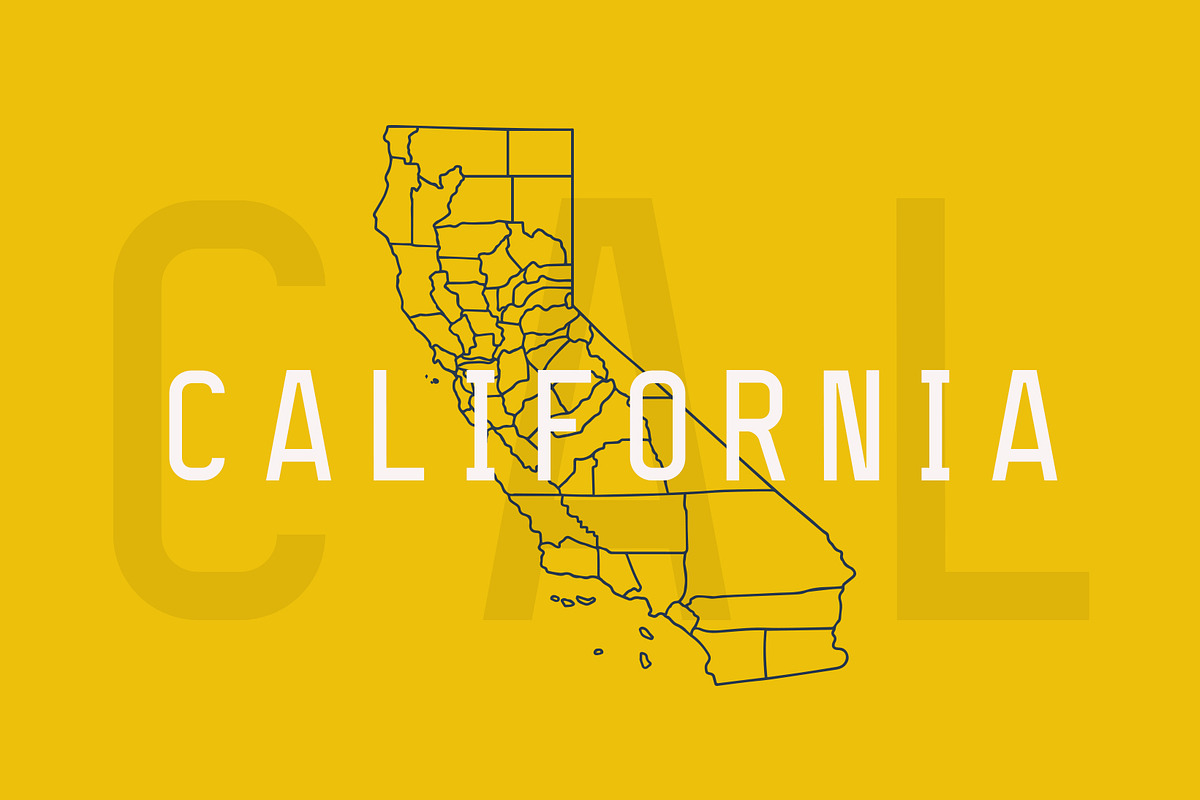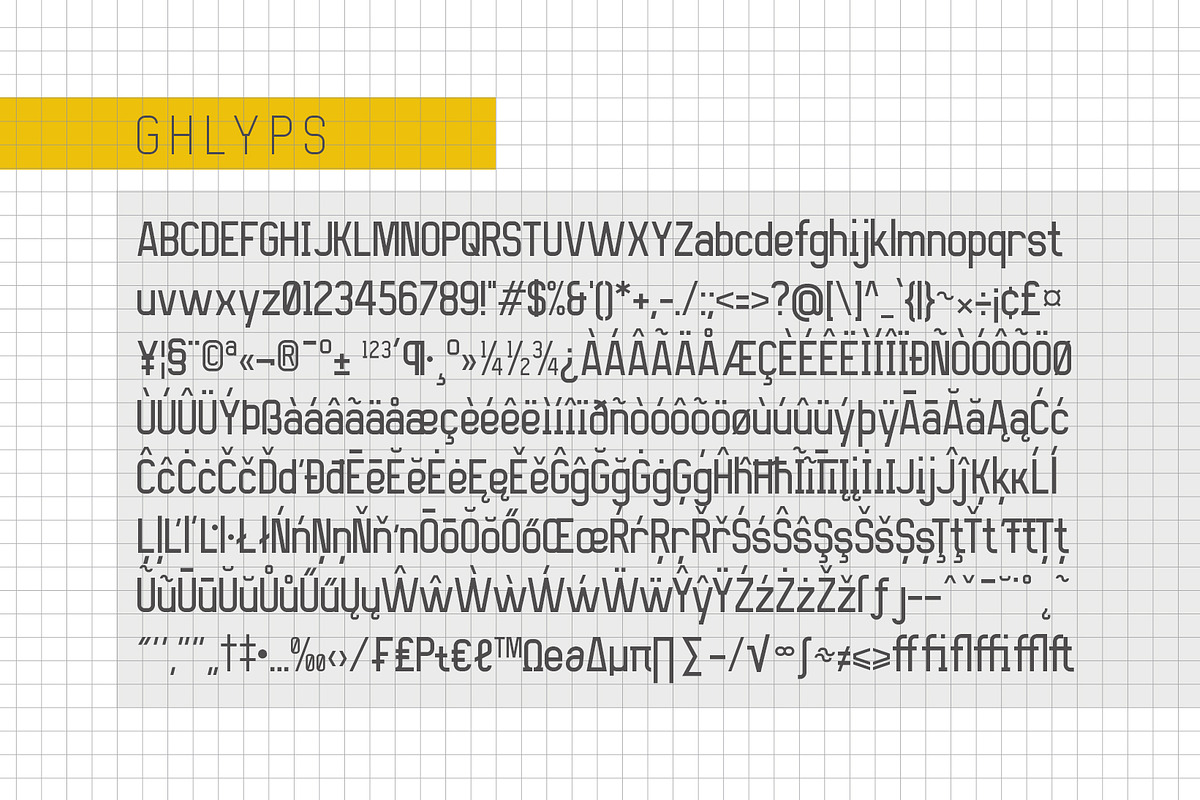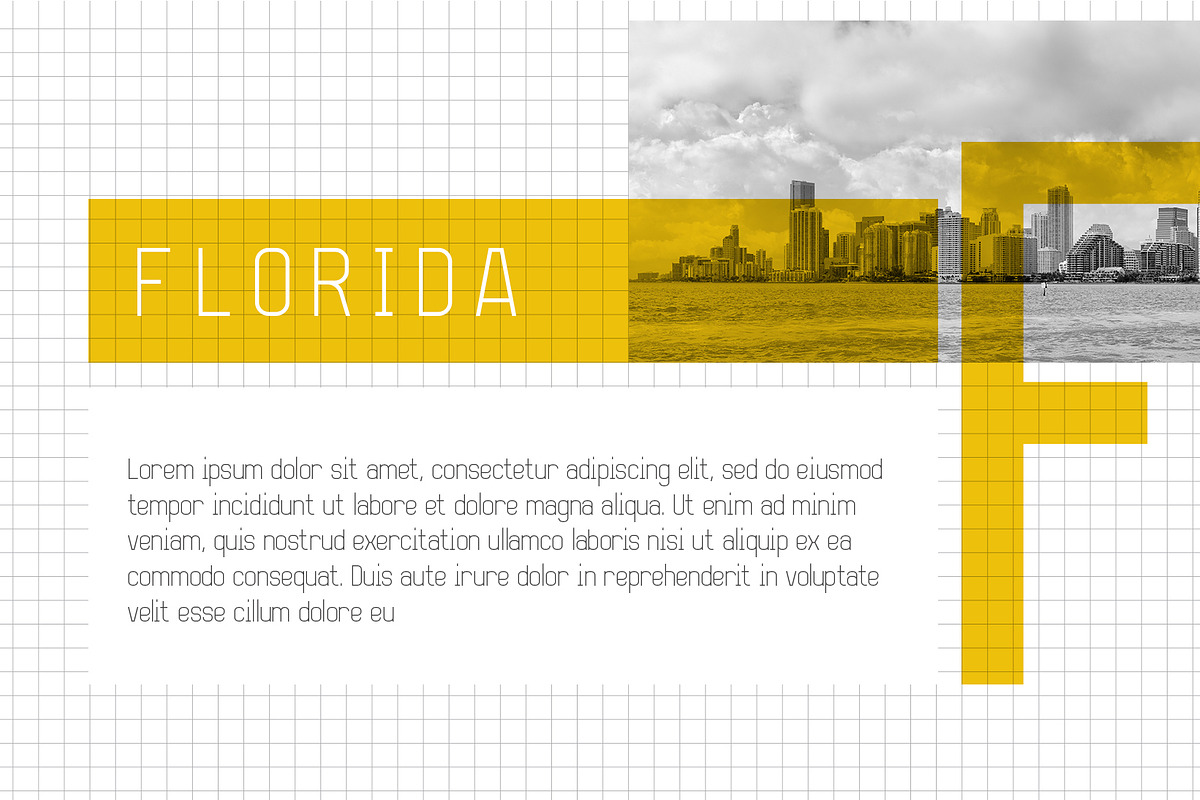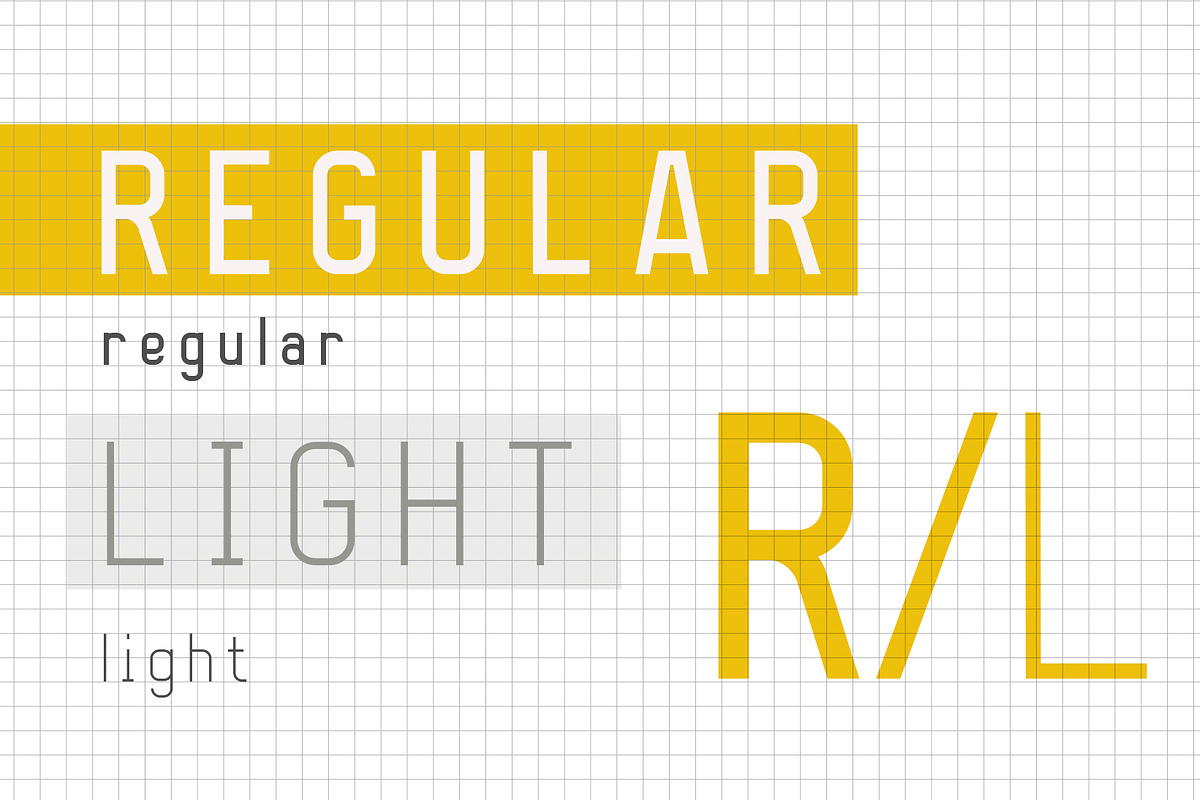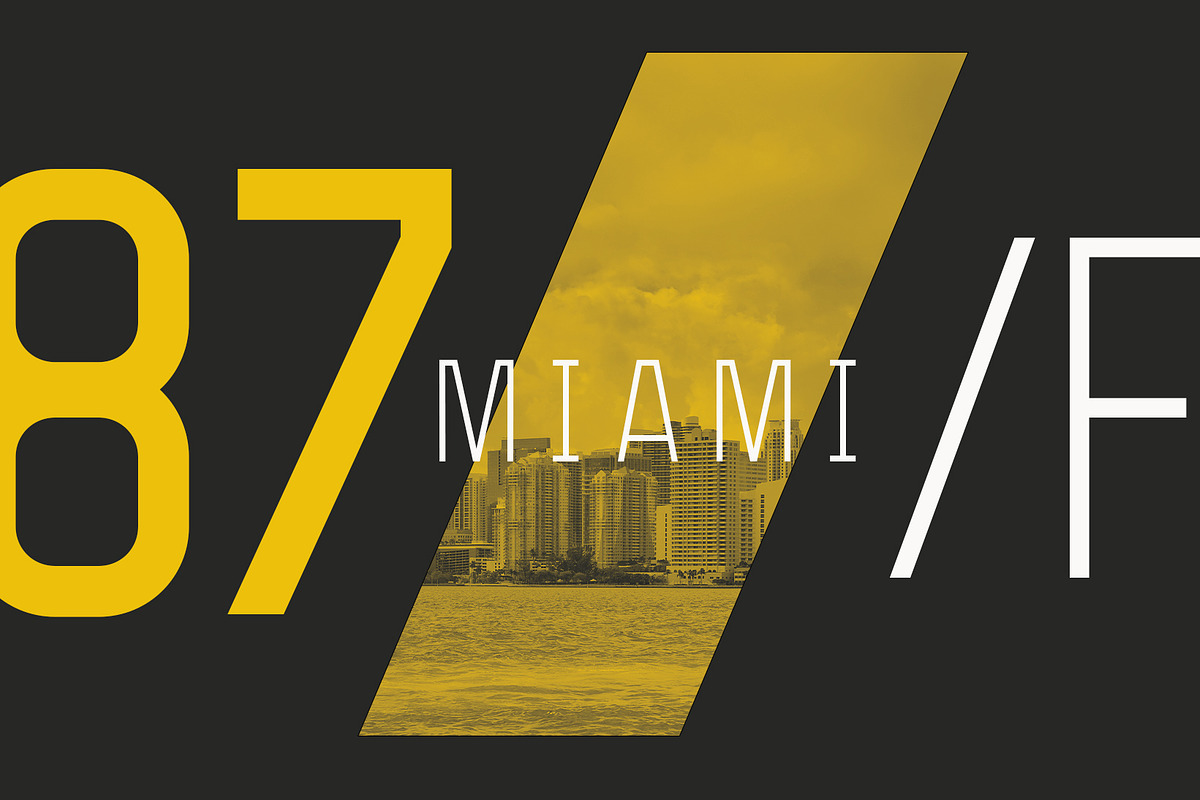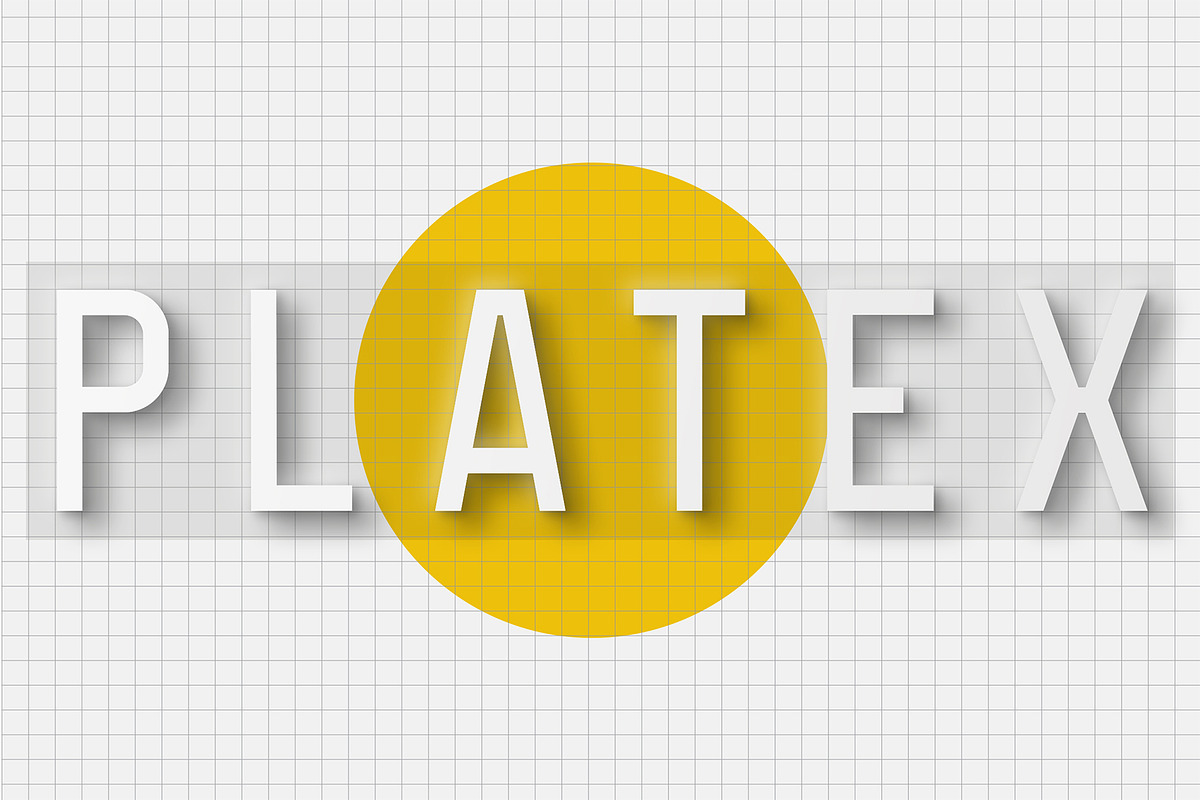
Platex
Platex is a modern sans serif font that very versatile, it was inspired by US vehicle license plate but with some modification in its shape, this typeface is suitable for everyday use, personal or commercial work. It would be better for display, headline or poster.
It comes with two styles :
Light Regular